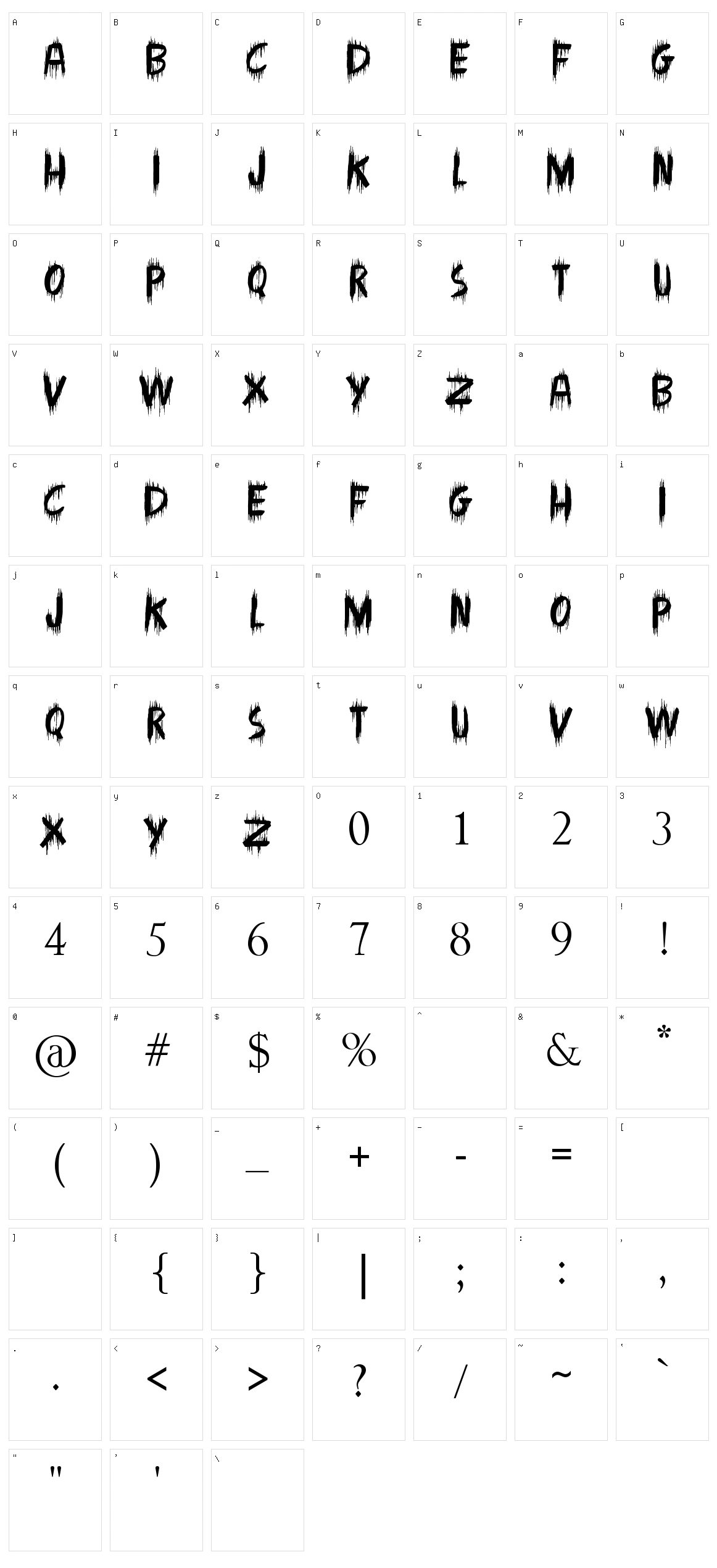
The free font Madman Howling is carefully designed by JSH creates, showcasing a thoughtful balance of creativity and usability and falls under the Horror font style. When you download the ZIP file, it contains only 82.27 KB of font files, making it lightweight and quick to download. Please review the license details below to understand permitted usage and distribution rights. If license information is not available, we recommend using this font for personal projects only or contacting the author directly for commercial usage permissions.